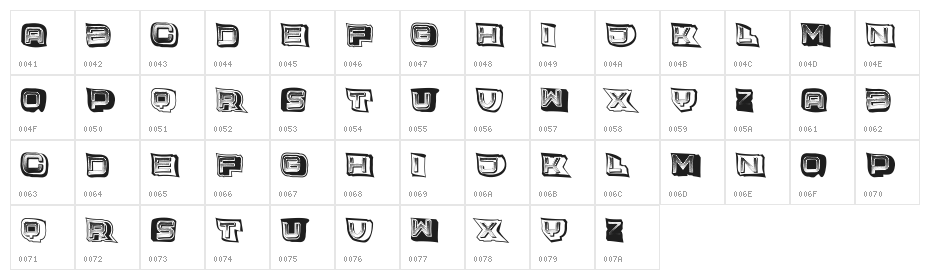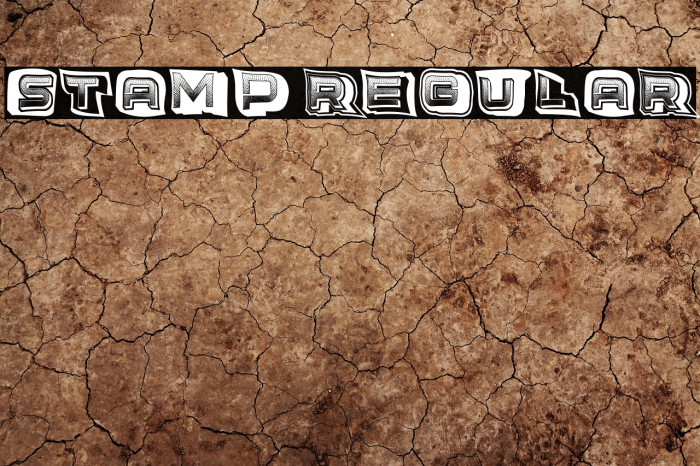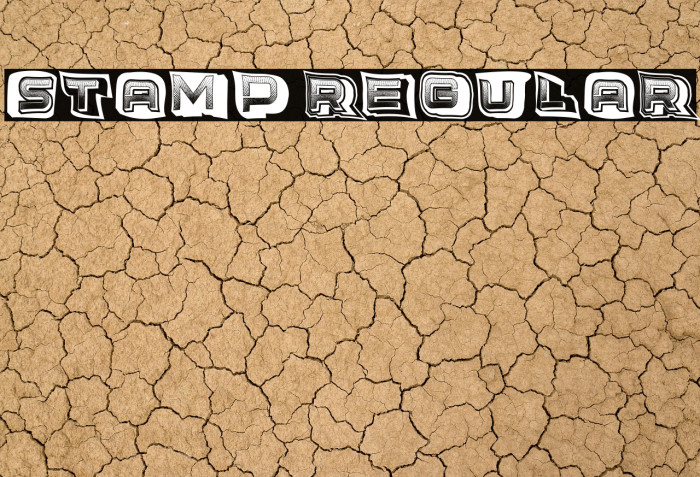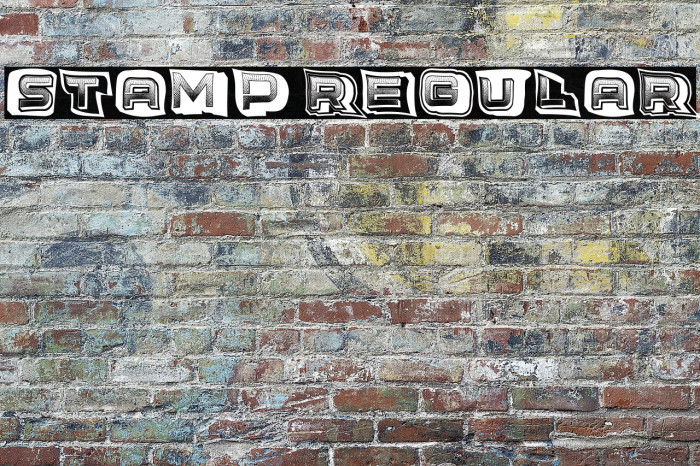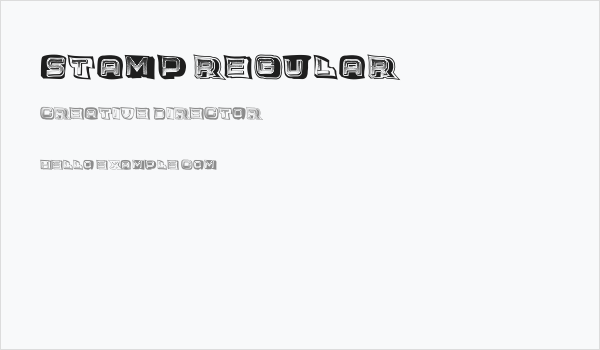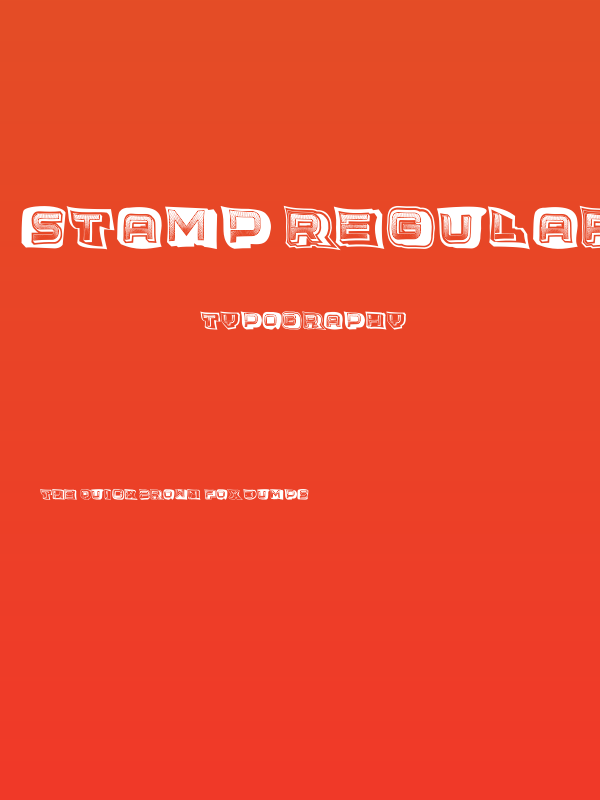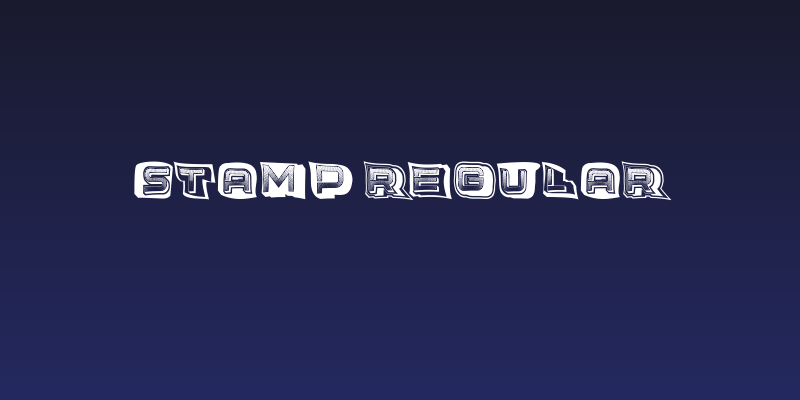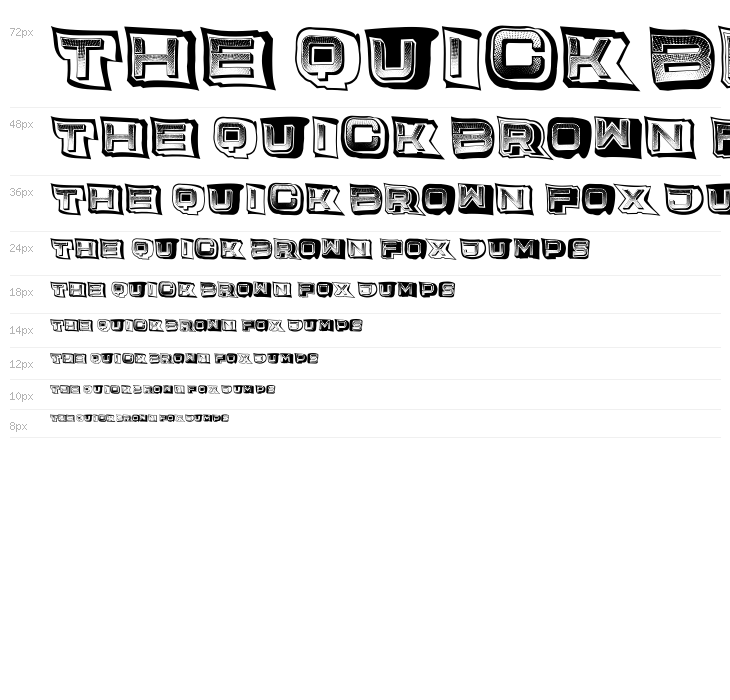
Stamp Regular Font
Stamp Regular Description
This font features a bold and dynamic style with a three-dimensional, embossed effect that gives each character a distinct, eye-catching appearance. The letters are designed with a combination of thick and thin strokes, creating a sense of depth and movement. The overall look is reminiscent of vintage signage or posters, with a playful yet strong presence. Each character is uniquely styled, adding a touch of individuality while maintaining a cohesive look across the alphabet. The font's boldness and decorative elements make it ideal for projects that require a standout typeface.
| Overall Style | Vintage |
| Proposed Projects | Ideal for vintage-themed posters, signage, branding, and packaging designs. |